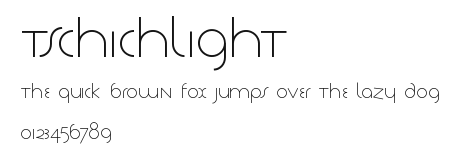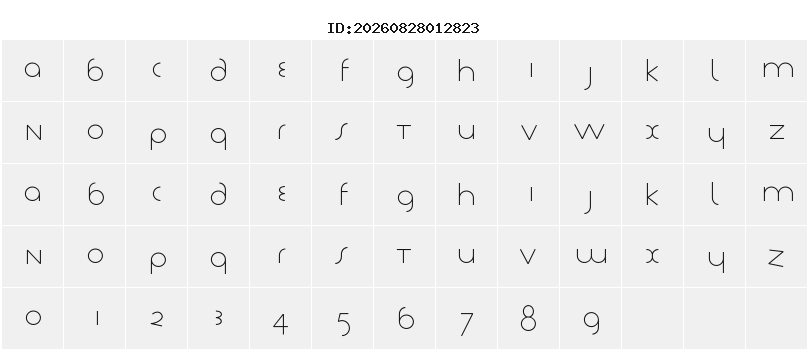
• Font Name: TschichLight
• Font ID: TschichLight
• Full Font Name: TschichLight-Light
• Version: 1.0 2002-06-17
• PostScript Name: TschichLight-Light
• Copyright: © m klein ~1991, neu 3.3.97
About TschichLight.ttf
TschichLight.ttf is a modern, elegant sans-serif font designed for ultimate readability and visual harmony. Perfect for branding, headlines, web design, and print materials.